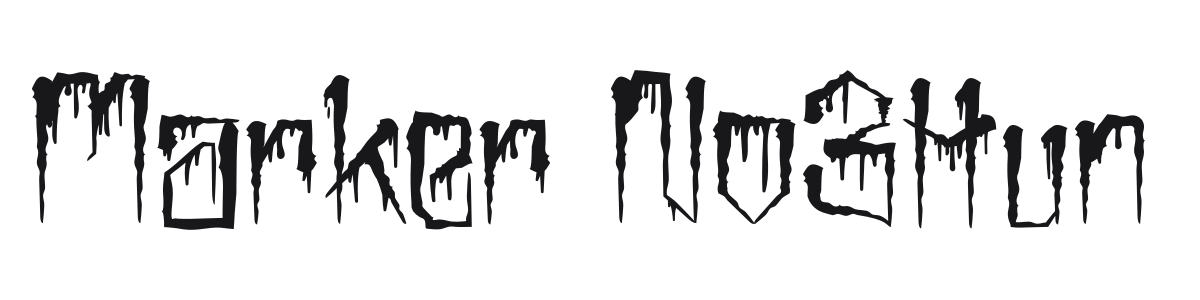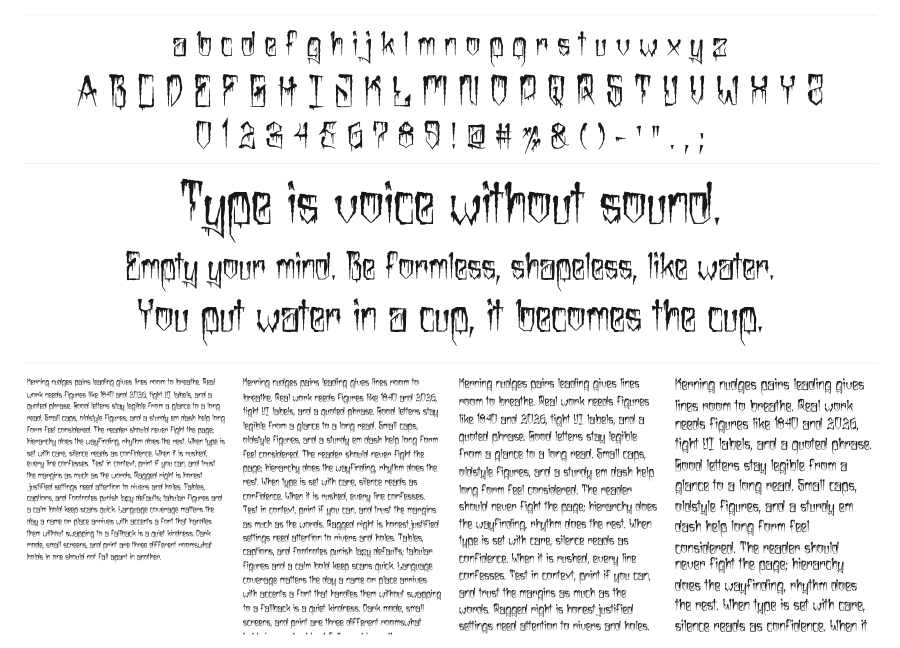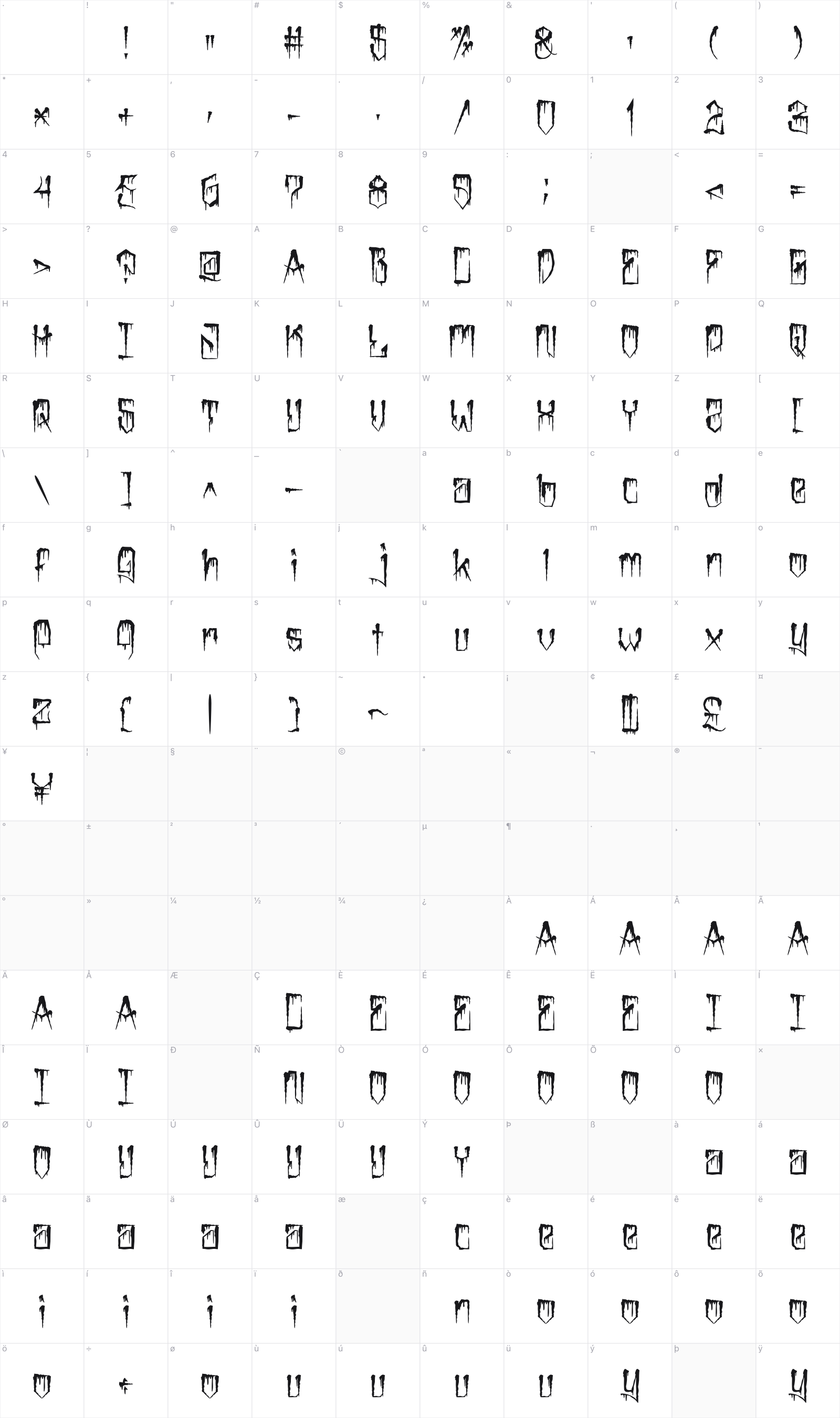
Marker No3Hun
Marker No3Hun is a heavy drip-horror display font with blackletter bones and visceral ink-drip details hanging from its characters. The distressed, eroded strokes give it an authentically worn and menacing quality that goes well beyond a simple overlay effect. It works at large sizes for horror posters, metal album art, or any project that needs a genuinely unsettling typographic voice.